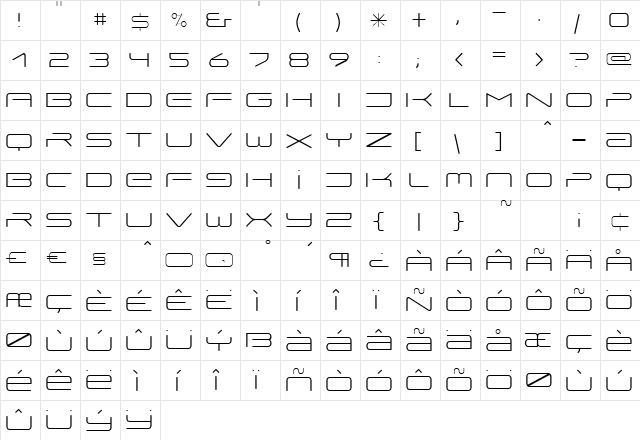
Ring Thin Font Preview
Ring Thin
Design Context for Ring Typeface
Ring takes a measured approach to typography — its balanced proportions and neutral character make it a reliable workhorse for both digital and print work. The delicate stroke weight brings airiness and refinement to layouts.